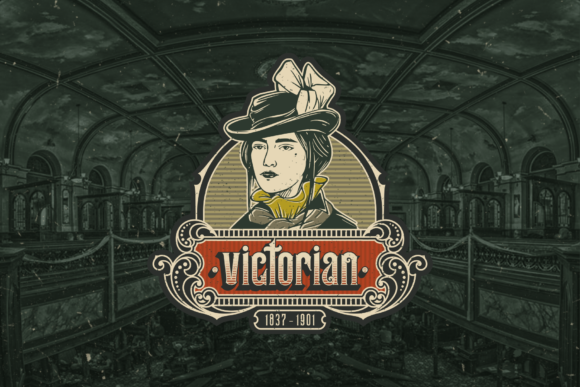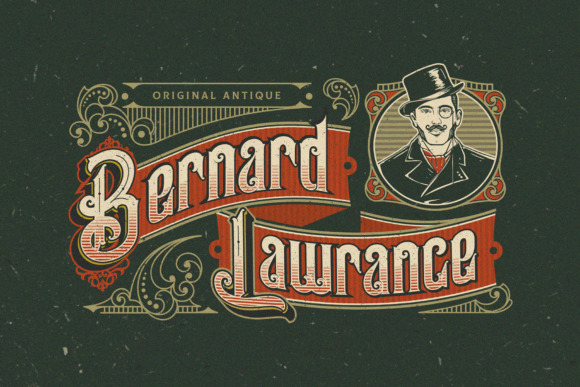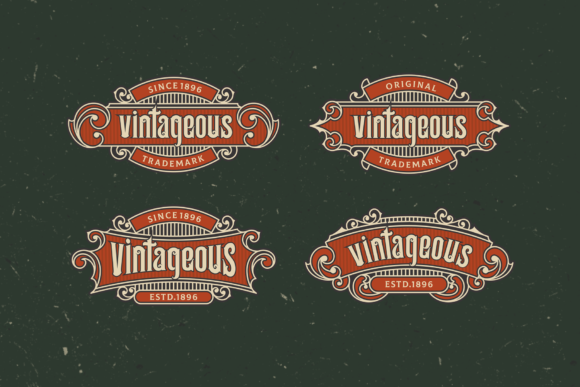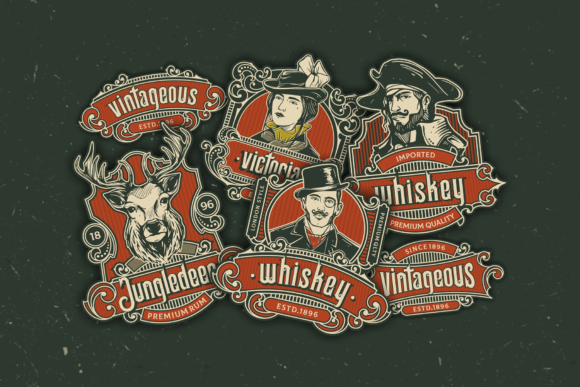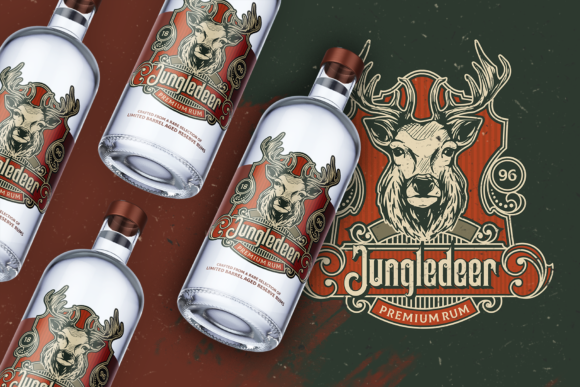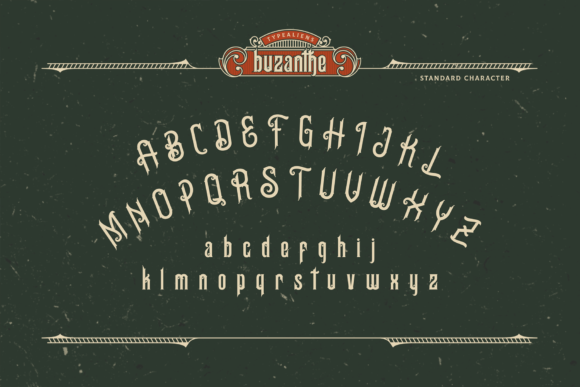
The Perfect Brushstroke: Discovering the Buzanthe Font
Have you ever found yourself doodling in a notebook, searching for that perfect brushstroke to bring your ideas to life? Maybe you’ve spent hours perfecting the curve of a letter or the flourish of a signature. For designers, this moment is all too familiar. It’s the spark that ignites creativity and sets the tone for a project.
Meet the Buzanthe Font, a stunning vintage display font designed to elevate your design projects to new heights. With its elegant curves and ornate details, this font is perfect for branding, headings, labels, invitations, signatures, logos, and much more. Whether you’re a seasoned designer or just starting out, the Buzanthe Font is an invaluable addition to your toolkit.
Buzanthe Font Key Features
- Unique Characteristics: Buzanthe Font features a unique blend of modern and elegant styles, making it suitable for various design applications
- Font Weight and Style: Available in multiple weights and styles, including regular, bold, italic, and bold italic
Buzanthe Font Review
When I first laid eyes on the Buzanthe font, I was immediately drawn to its unique aesthetic. ✨ The subtle irregularities and rounded edges give it a friendly, approachable feel that’s hard to resist. It’s perfect for designers looking to add a touch of whimsy to their projects without going over the top.
- ✨ Unique, hand-drawn aesthetic that sets it apart from more generic fonts.
- ✨ Friendly and approachable feel that’s perfect for designs targeting a younger audience.
- ✨ Wide range of weights and styles available, making it easy to find the perfect fit for your project.
- ⚠️ Some characters may appear slightly inconsistent, which could be a problem for designers who value precision.
- ⚠️ May not be suitable for formal or professional projects where a more traditional font is preferred.
- ⚠️ Limited language support, which could be a concern for designers working on projects requiring multiple languages.
Overall, the Buzanthe font is a solid choice for designers looking to add some personality to their projects. While it may not be perfect, its unique aesthetic and wide range of styles make it a valuable addition to any design library. Just be aware of its limitations and use it accordingly.
To get the most out of the Buzanthe font, use it for headings and titles to add a touch of elegance and sophistication. It’s particularly suitable for formal and professional designs, such as business reports, presentations, and marketing materials.
Some common use cases for the Buzanthe font include:
- Business reports and presentations
- Formal invitations and certificates
- Editorial and publishing designs
Alternatives to Buzanthe Font
The Great Vibes Font is a beautiful, handwritten font that is perfect for adding a personal touch to your designs. It’s ideal for use in headings, titles, and quotes, and is especially suitable for creative industries such as fashion, art, and music. Great Vibes Font has a similar cursive feel to Buzanthe Font, but with a more elegant and refined look.
The Pacifico Font is a modern, elegant script font that is great for use in headings, titles, and body text. It’s perfect for designs that need a touch of sophistication and style, and is especially suitable for use in fashion, lifestyle, and travel industries. Pacifico Font has a more relaxed and casual feel compared to Buzanthe Font, but still maintains a level of sophistication.
The Carolyna Pro Font is a high-end, modern script font that is perfect for use in luxury brands and high-end designs. It’s ideal for use in headings, titles, and body text, and is especially suitable for use in fashion, beauty, and lifestyle industries. Carolyna Pro Font has a more refined and elegant look compared to Buzanthe Font, with a focus on sophistication and luxury.